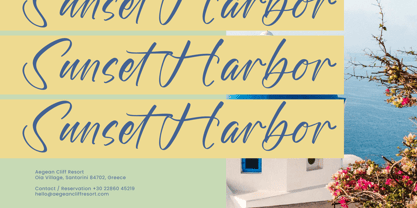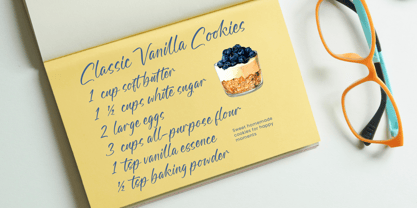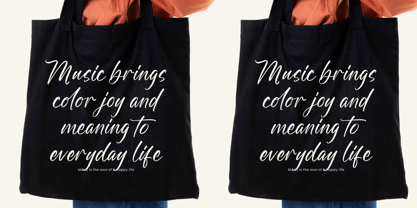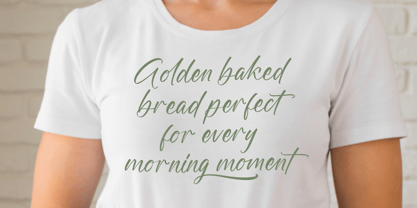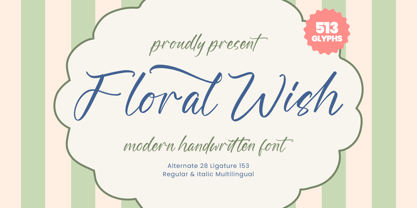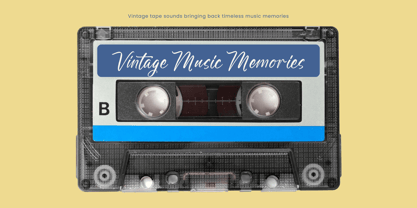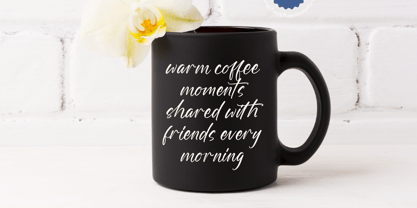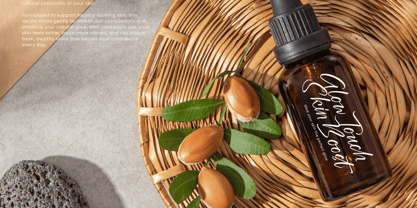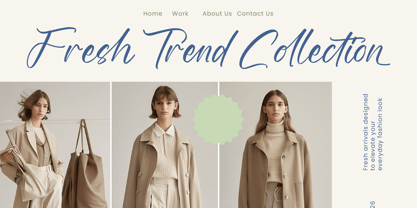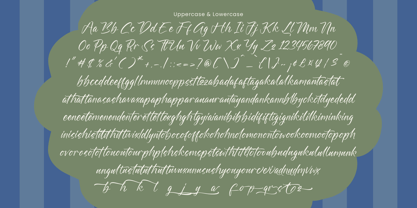
Floral Wish
by Stylishtype Studio
The Floral Wish Font Family was designed by Heru Utama Putra and published by Stylishtype Studio. Floral Wish contains 2 styles and family package options. More about this family
Floral Wish – Modern Handwritten Script Font Floral Wish is a modern handwritten script font designed with smooth flowing strokes and elegant handwritten curves. The style captures the natural beauty of casual handwriting while maintaining a clean and balanced structure suitable for contemporary design projects. The font features graceful letterforms with soft connections and stylish ligatures that help create seamless typography compositions. Its light and friendly character makes it perfect for designs that require a warm and elegant handwritten aesthetic. Floral Wish includes alternate characters and ligatures that allow designers to build unique lettering styles with ease. With both regular and italic styles included, this font provides flexibility for creating expressive titles, branding elements, and decorative typography. The refined handwritten style makes Floral Wish ideal for creative designs that need a gentle, modern, and elegant appearance.